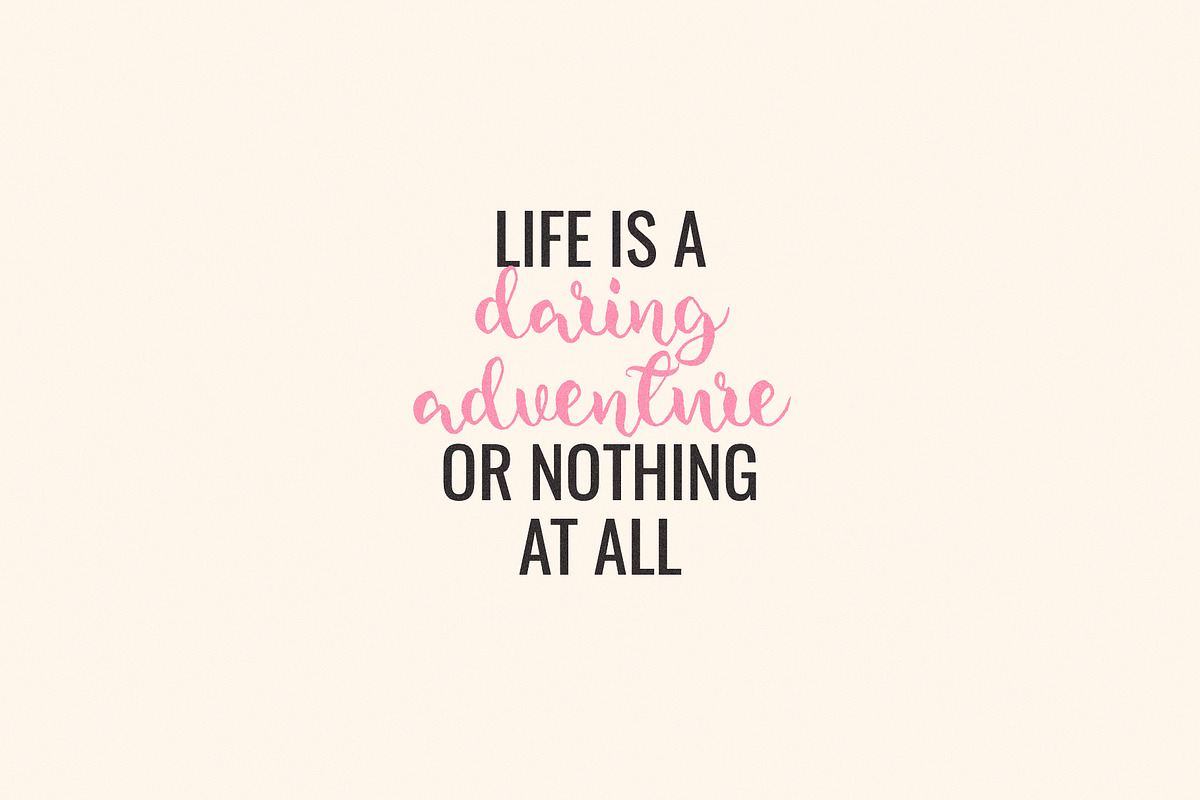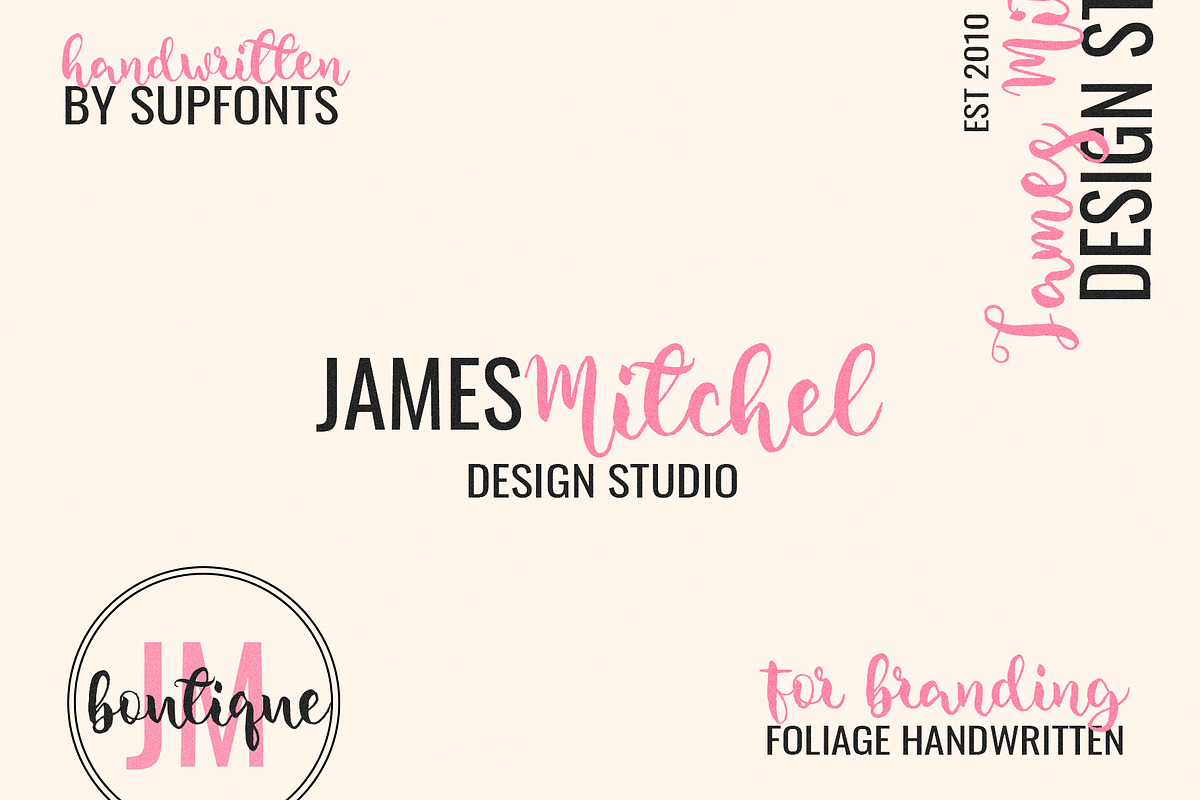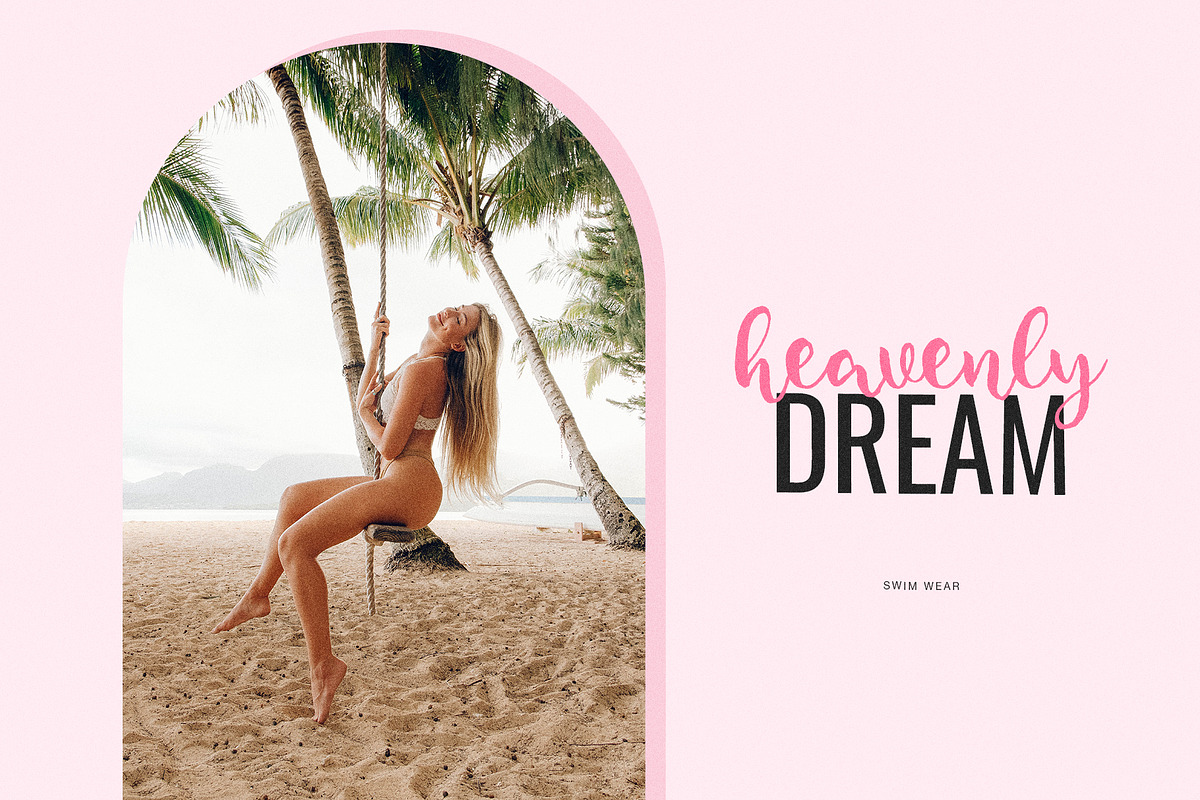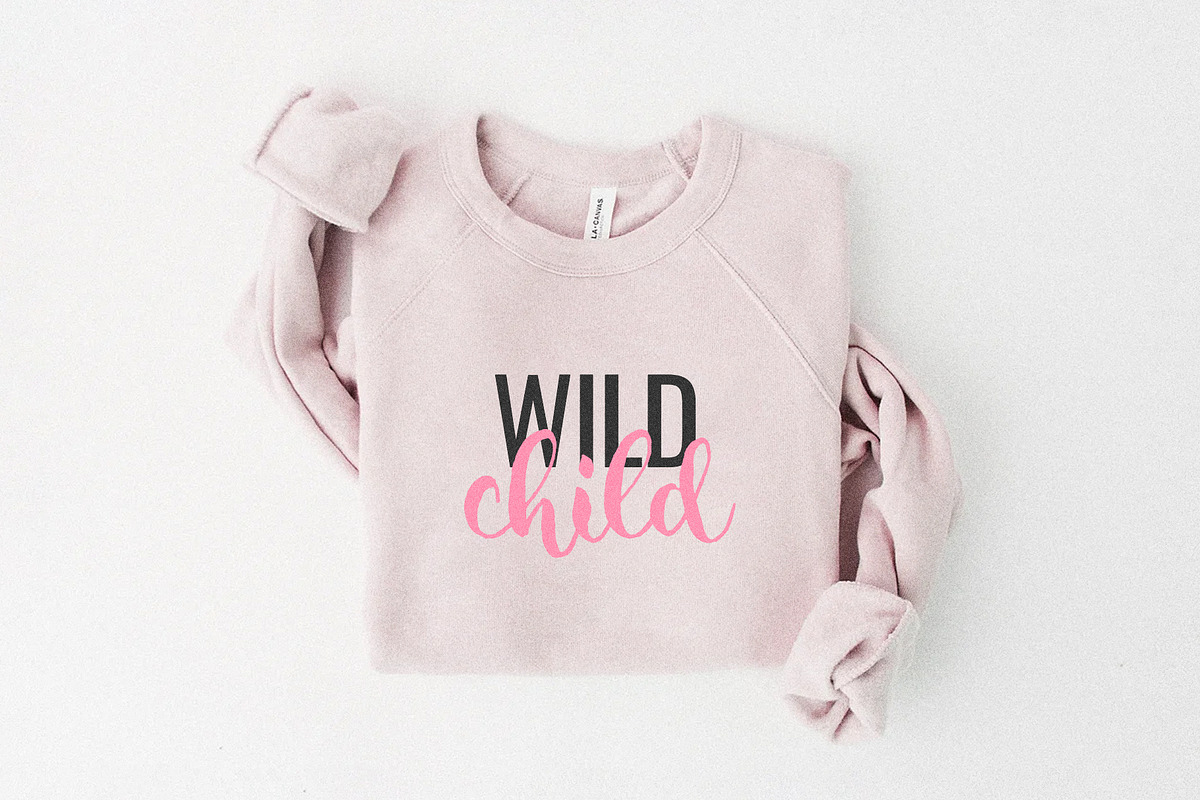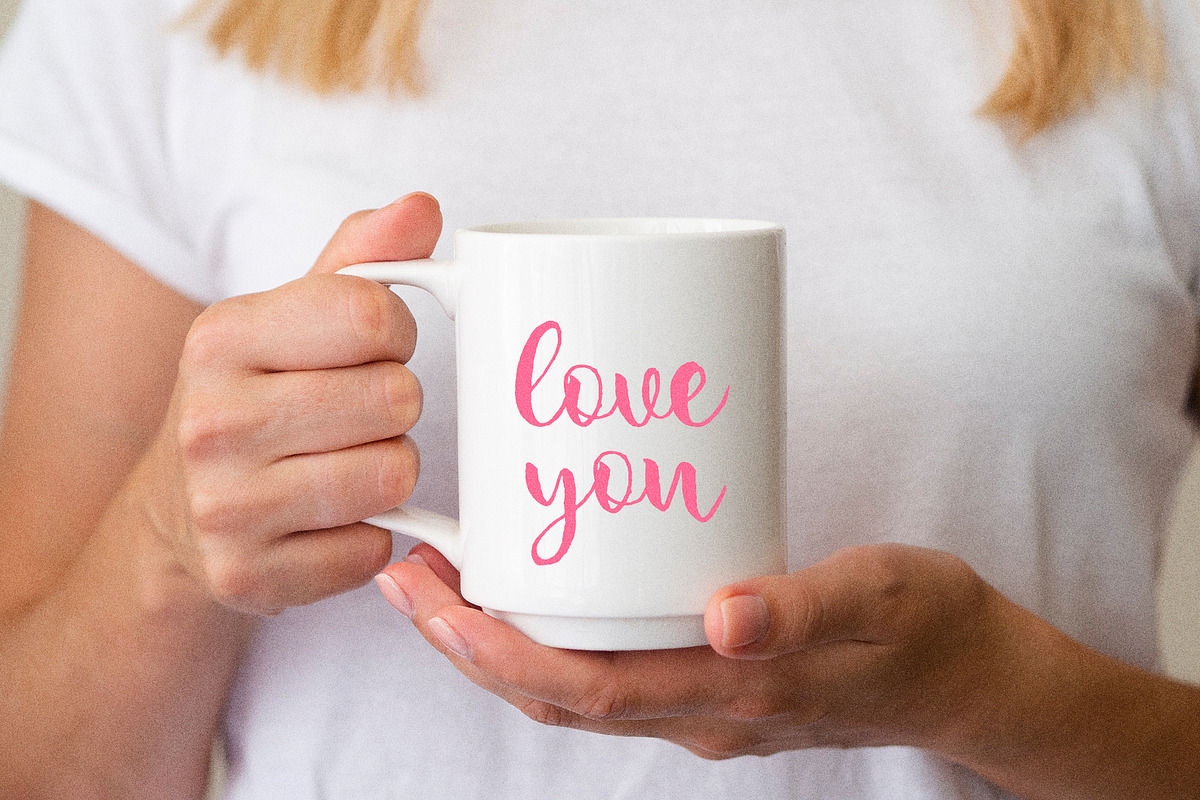
Foliage cute handwritten font
Foliage cute handwritten font by supfonts is a font selected for branding, posters, packaging, typography.
- Foliage it is cute handwritten chick font DUO with exquisite accents.
Why Foliage cute handwritten font is worth a look
Foliage cute handwritten font by supfonts fits naturally into Branding, posters, packaging, typography.